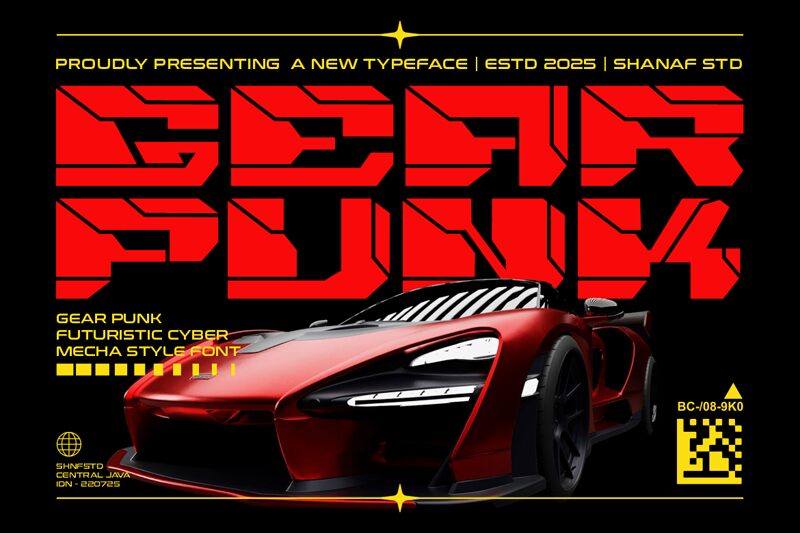
Gearpunk font family was created by PutraCetol Studio in a modern and digital style inspired by technology. It comes in 2 font styles, and it is a techno font that brings a futuristic, mechanical, and industrial feel to the reader. Its bold presence is what makes it the ideal display typeface for projects seeking a digital and sci-fi appeal. It is angular with extreme geometric forms.
Use Gearpunk in gaming publications, sporting titles on jerseys, electronic products & companies, and hi-tech movies. Other ideas for utilizing Gearpunk include streetwear designs, advertising, or branding.